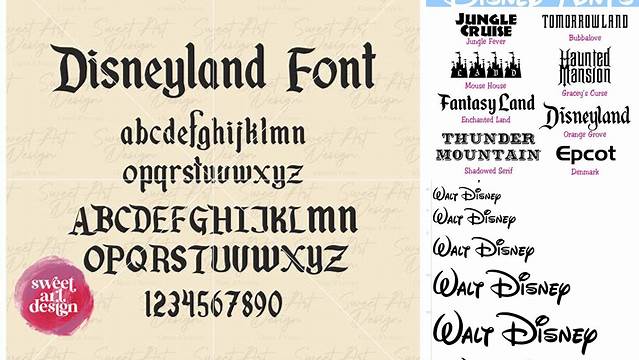
Free Vintage Disney Font Downloads: Add Magic To Your Designs
Hey guys! Who doesn't love Disney? The magic, the characters, and of course, that iconic Disney font that just screams childhood nostalgia. If you're looking to add a touch of that classic Disney charm to your projects, you're in the right place. In this article, we'll dive deep into the world of vintage Disney fonts, explore where you can find them for free download, and discuss how to use them to create stunning designs that capture the whimsical spirit of Disney. Whether you're a seasoned designer or just starting out, get ready to unleash your inner child and sprinkle some Disney magic on your creations!
Why Vintage Disney Fonts? The Magic Behind the Letters
So, what's the big deal about vintage Disney fonts anyway? Well, for starters, they're instantly recognizable. That distinctive, playful lettering evokes memories of classic Disney movies, theme parks, and characters. Using these fonts can add a sense of nostalgia, fun, and authenticity to your projects. Think about it: that swirly, whimsical typeface is practically synonymous with Disney itself. Vintage Disney fonts are more than just letters; they're a visual representation of a beloved brand and a cultural touchstone for generations.
But the appeal goes beyond just nostalgia. These fonts are carefully crafted with a unique personality that sets them apart. The rounded edges, the elegant curves, and the overall sense of joyfulness make them perfect for a variety of applications. From birthday invitations and party decorations to website headers and social media graphics, a classic Disney font can instantly elevate your design and capture the attention of your audience. They're versatile, charming, and undeniably magical.
Imagine creating a birthday card for your niece using a font that looks like it came straight out of a Disney storybook. Or designing a website banner that transports visitors to the enchanting world of Disney. The possibilities are endless when you have access to these vintage fonts. They're not just for Disney-themed projects either; you can use them to add a touch of whimsy to any design that needs a bit of fun and personality. So, if you're looking to inject some magic into your work, exploring the world of vintage Disney fonts is a fantastic place to start. Plus, who can resist the allure of a free download? We'll get to that part soon, so keep reading!
Where to Find Free Vintage Disney Fonts: Your Treasure Map to Typography
Another excellent resource is the world of font foundries and independent designers. Many talented designers create fonts that capture the essence of vintage Disney, and they may offer them for free download on their websites or through online communities. Keep an eye out for fonts with names that hint at their Disney inspiration, such as "Mickey," "Waltograph," or "Mouse House." These are often good indicators that the font has a playful, whimsical style similar to classic Disney fonts.
Don't forget about online design communities and forums. These platforms can be goldmines for discovering hidden gems and connecting with other designers who share your love for vintage typography. You might find recommendations for specific fonts or even links to free downloads that you wouldn't find through a regular search engine. Plus, you can always ask for suggestions – chances are, someone in the community will be able to point you in the right direction.
Remember, the key to finding the perfect free vintage Disney font is to be patient, persistent, and mindful of licensing. With a little digging, you'll unearth a treasure trove of enchanting typefaces that will add a touch of magic to your designs.
Top Free Vintage Disney Fonts: Our Handpicked Recommendations
Alright, guys, let's get to the fun part! You know why you need vintage Disney fonts, and you know where to look. Now, let's dive into some specific recommendations. We've scoured the internet to bring you a curated list of some of the best free vintage Disney fonts out there. These fonts capture the spirit of Disney's classic typography and are perfect for adding a touch of whimsy to your projects. Remember to always check the license before using any font, especially for commercial purposes.
Waltograph: This font is a classic and perhaps the most well-known Disney-inspired typeface. It closely resembles the signature Walt Disney script and is perfect for headlines, logos, and anything that needs a touch of that authentic Disney magic. Waltograph is a fan-made font, and while it's widely available, always check the usage rights to ensure it fits your project's needs.
Mouse Memoirs: As the name suggests, this font evokes the feeling of classic Mickey Mouse cartoons. It's a playful, rounded typeface with a friendly and approachable vibe. Mouse Memoirs is great for children's books, party invitations, and any project that calls for a touch of lighthearted fun.
Mickey Ears Font: This font is instantly recognizable with its distinctive letterforms that incorporate Mickey Mouse ears. It's a bold and eye-catching choice for headlines, titles, and anything that needs to stand out. The Mickey Ears Font is a surefire way to add a playful and whimsical touch to your designs.
Magic Kingdom Font: If you're looking for a font that captures the feeling of Disney's theme parks, the Magic Kingdom Font is an excellent choice. It has a regal and elegant feel, reminiscent of the signage and branding found throughout the parks. This font is perfect for invitations, posters, and anything that needs a touch of fairytale magic.
Cartoonist Hand: While not strictly a